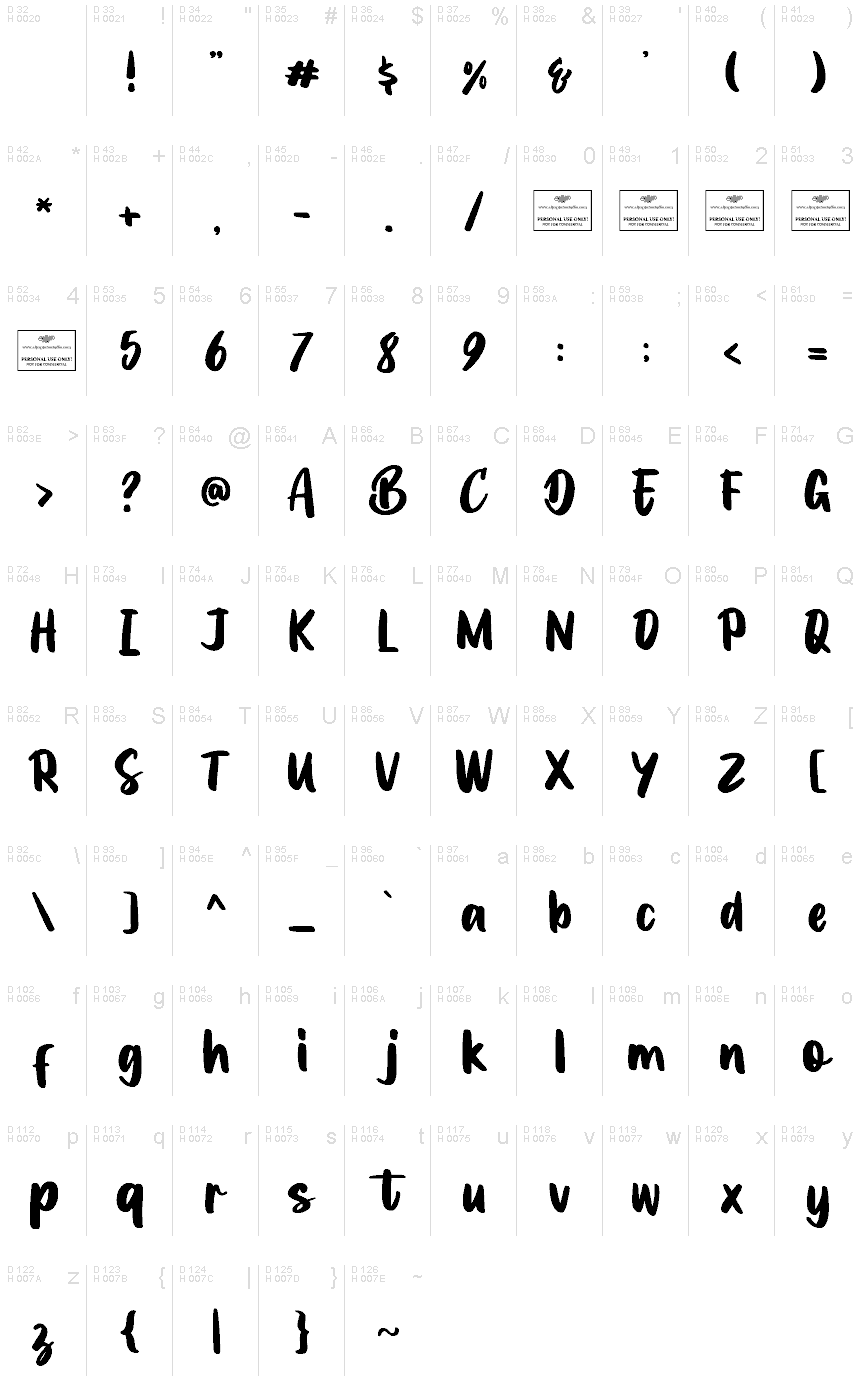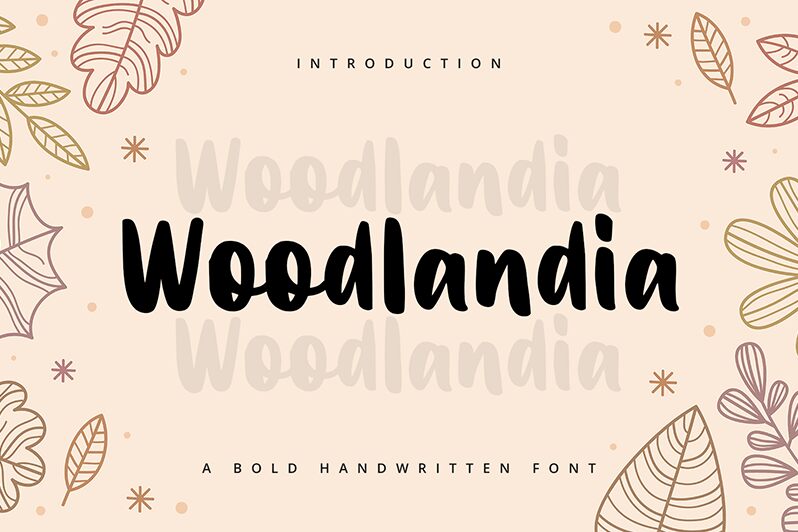
Woodlandia
Woodlandia font by Alpaprana Studio is a bold brush script typeface that captures a fun and friendly vibe within its letters. The modern design, inspired by hand-painted aesthetics, takes on a casual tone with artistic flair added to the mix. Each playful character has its own unique personality, turning every word into an expressive visual.